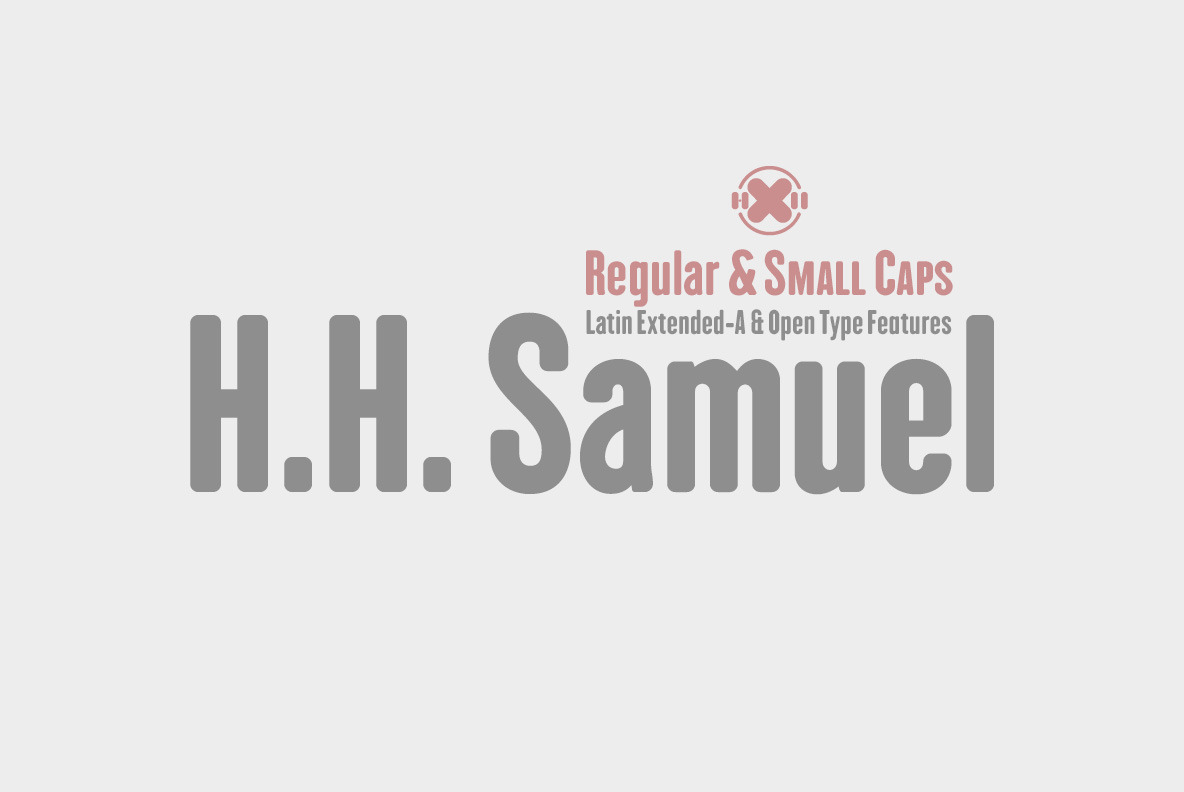
H.H. Samuel -2 fonts-
H H. Samuel is my new typographic design, a geometric font, extra condensed, without serif, with rounded finish in the vertices that gives more light to the contraforms of the font, since being so compressed the reading is compromised to small sizes.
- 2 fonts: Regular & Small Caps
- OpenType functions: Superscript, Denominators, Oldstyle Figures, Discretionary Ligatures, Numerators, Numbers Small Caps, Kerning, Extended Fractions, Superiors, Ordinals, Localized Forms, Fractions, Scientific Inferiors, Superior letters, Historical Forms, Subscript, Standard Ligatures, Inferiors, Capital Spacing, Slashed Zero, Contextual Alternates, Additional languages, All Alternates.